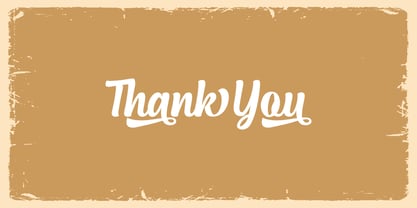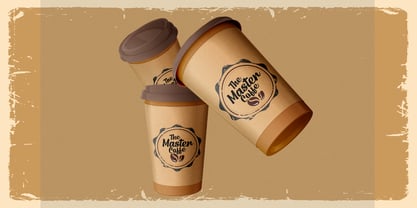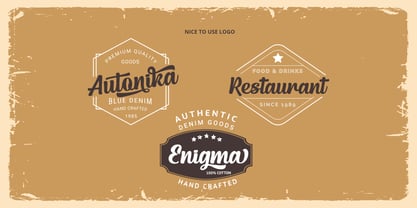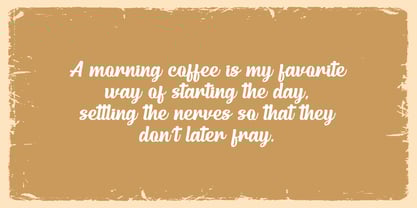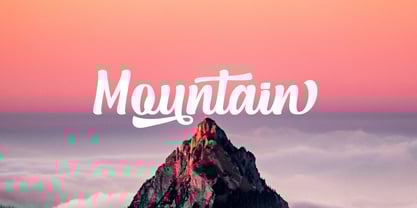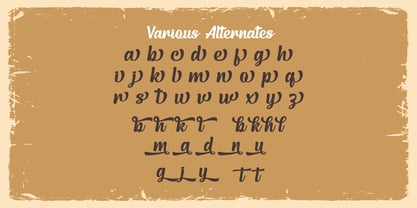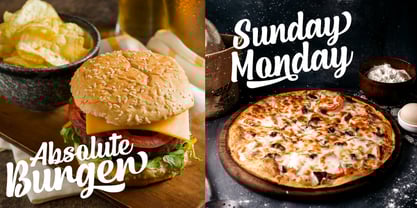
Autentica
by EKNOJI
The Autentica Font Family was designed by Eka Pamuji and published by EKNOJI. Autentica contains 1 styles.
Title: Autentica – A Bold Statement of Modern Calligraphy Autentica is a powerful bold script font that strikes the perfect balance between vintage charm and modern craftsmanship. With its thick, confident strokes and smooth connections, this font is designed for brands that want to feel authentic, grounded, and unmistakably premium. Its heavy weight makes it an absolute standout for display purposes, ensuring your message is seen and felt. From retro-inspired logos to contemporary street-style branding, Autentica brings a hand-crafted soul to every pixel. Perfect for: Bold Logotypes & Branding Product Packaging & Labels Poster Design & Apparel Signage & Storefronts
Designers: Eka Pamuji
Publisher: EKNOJI
Foundry: EKNOJI